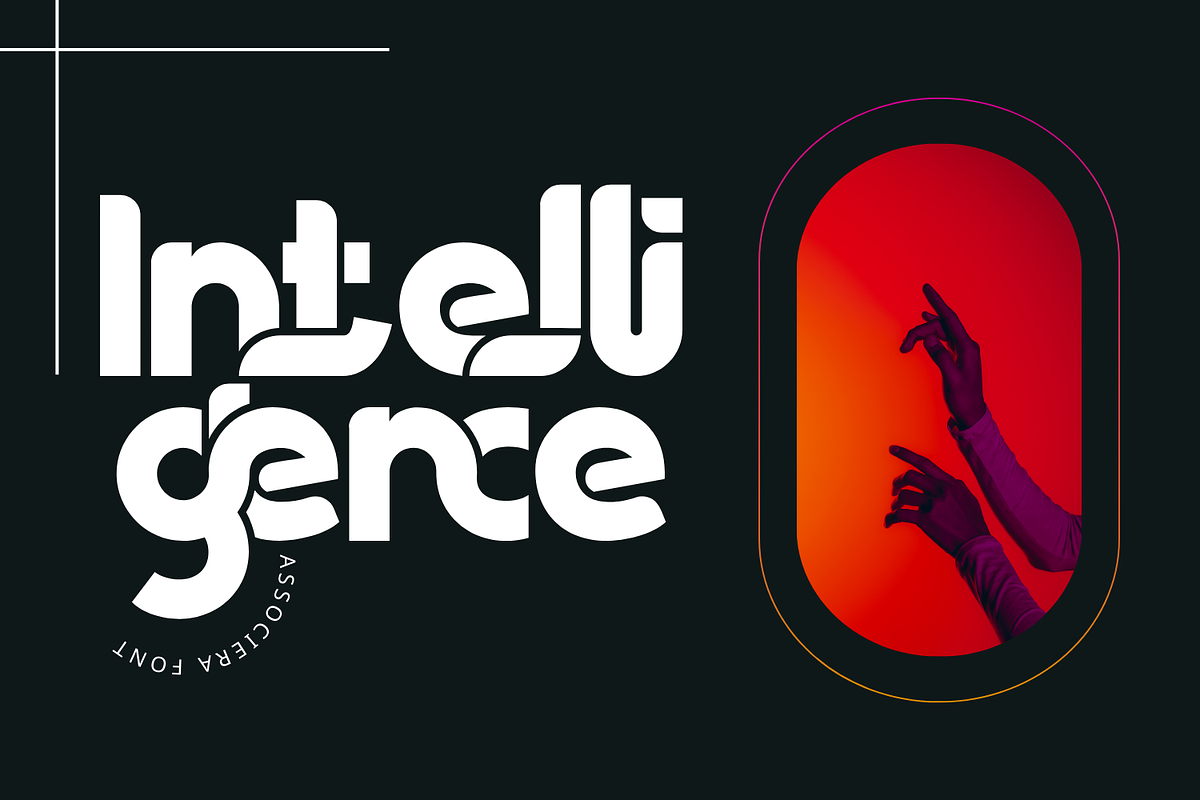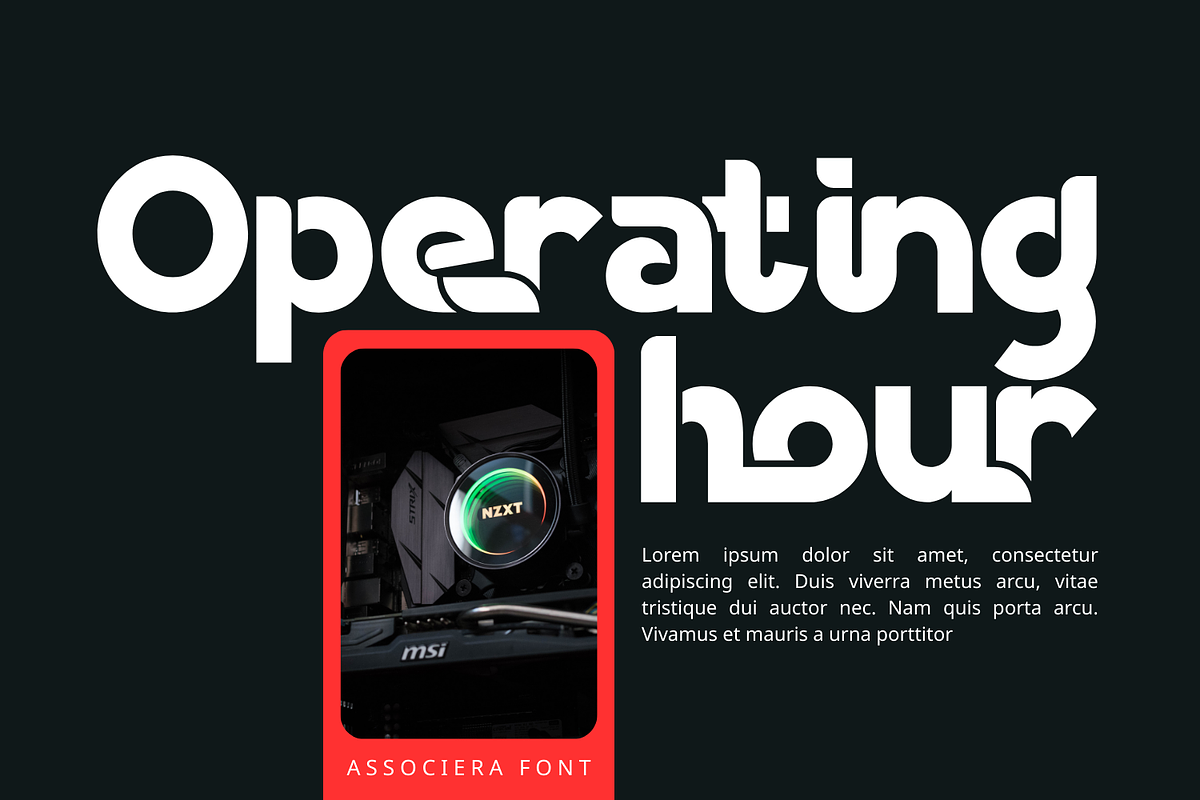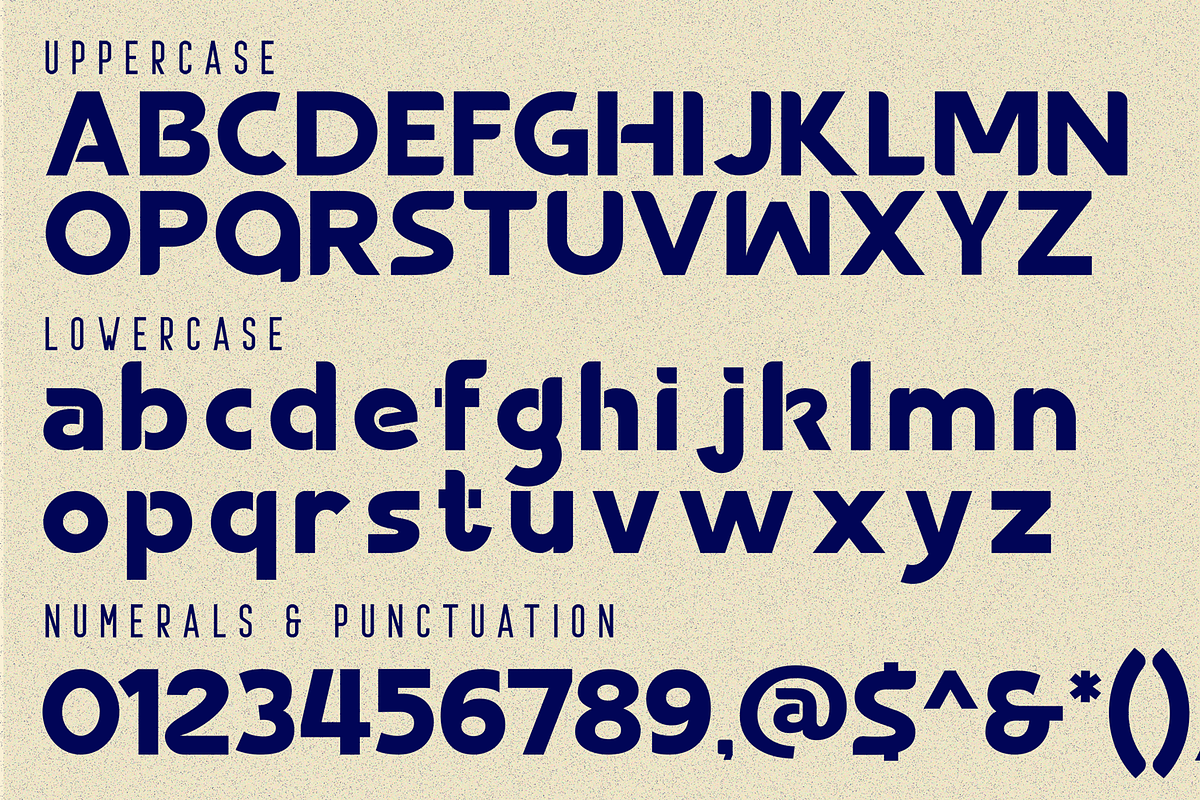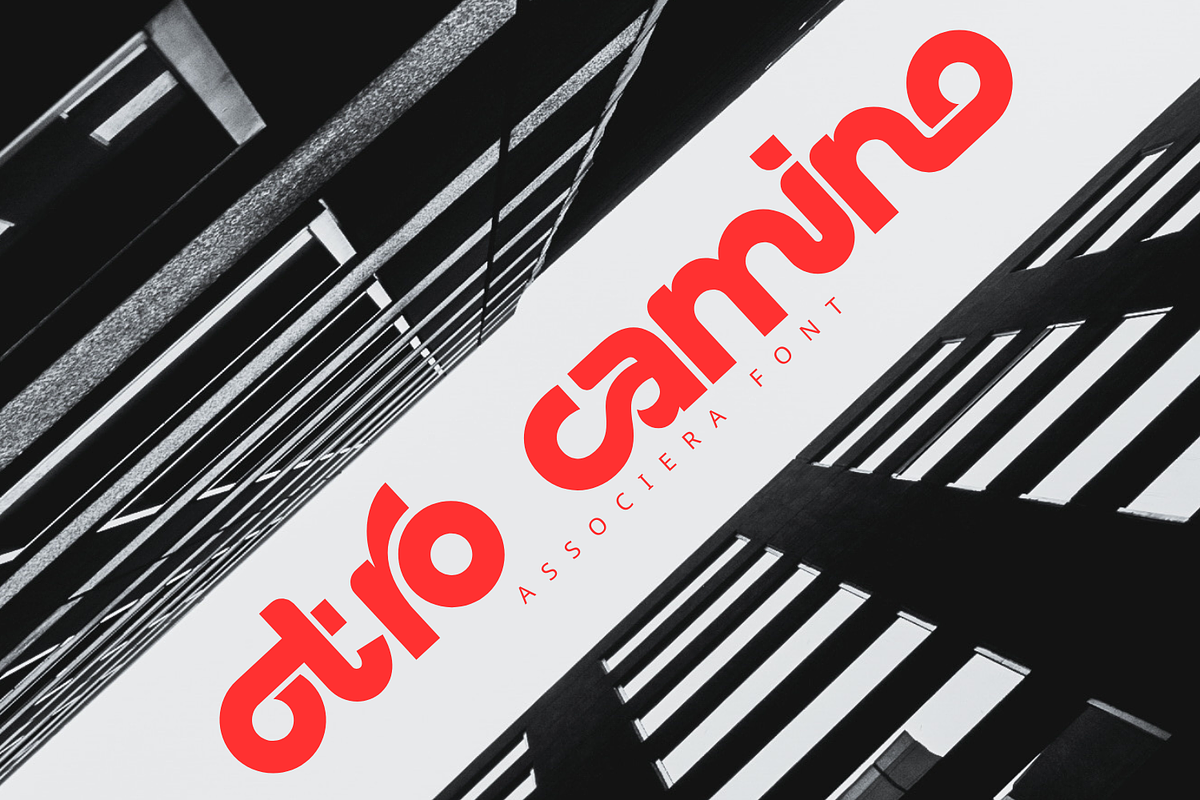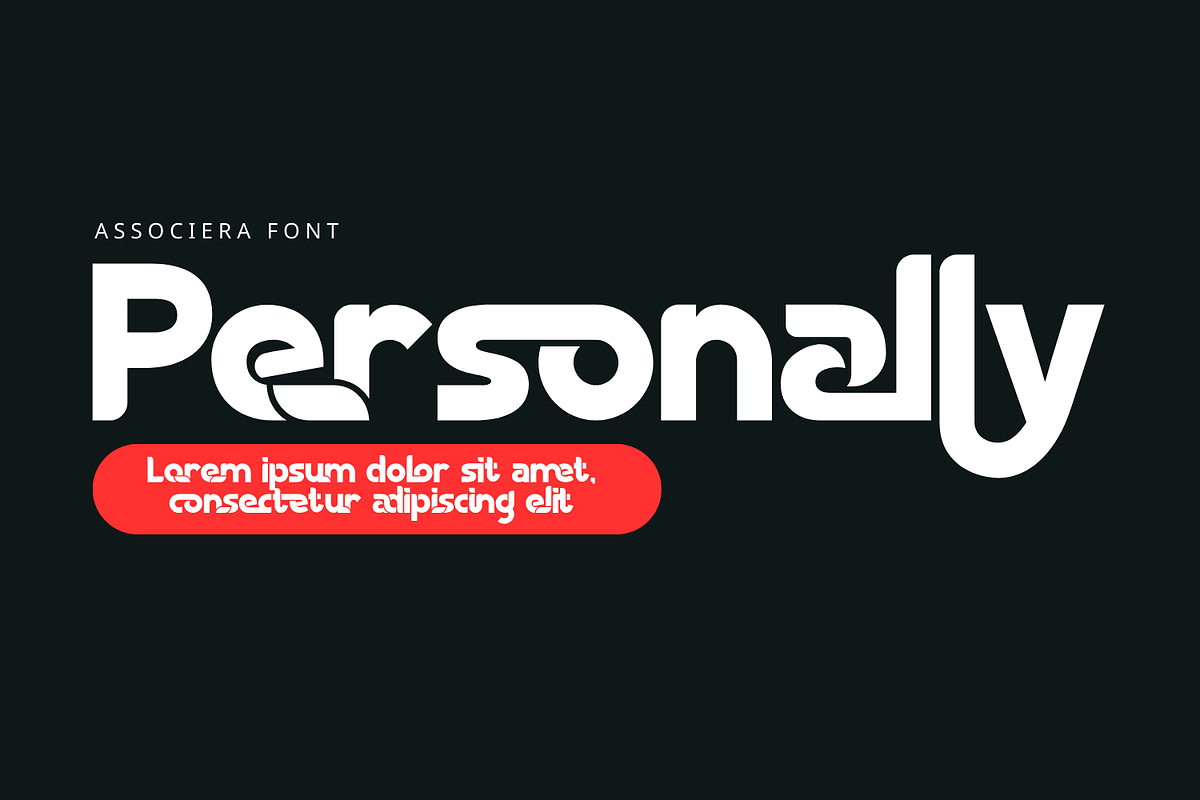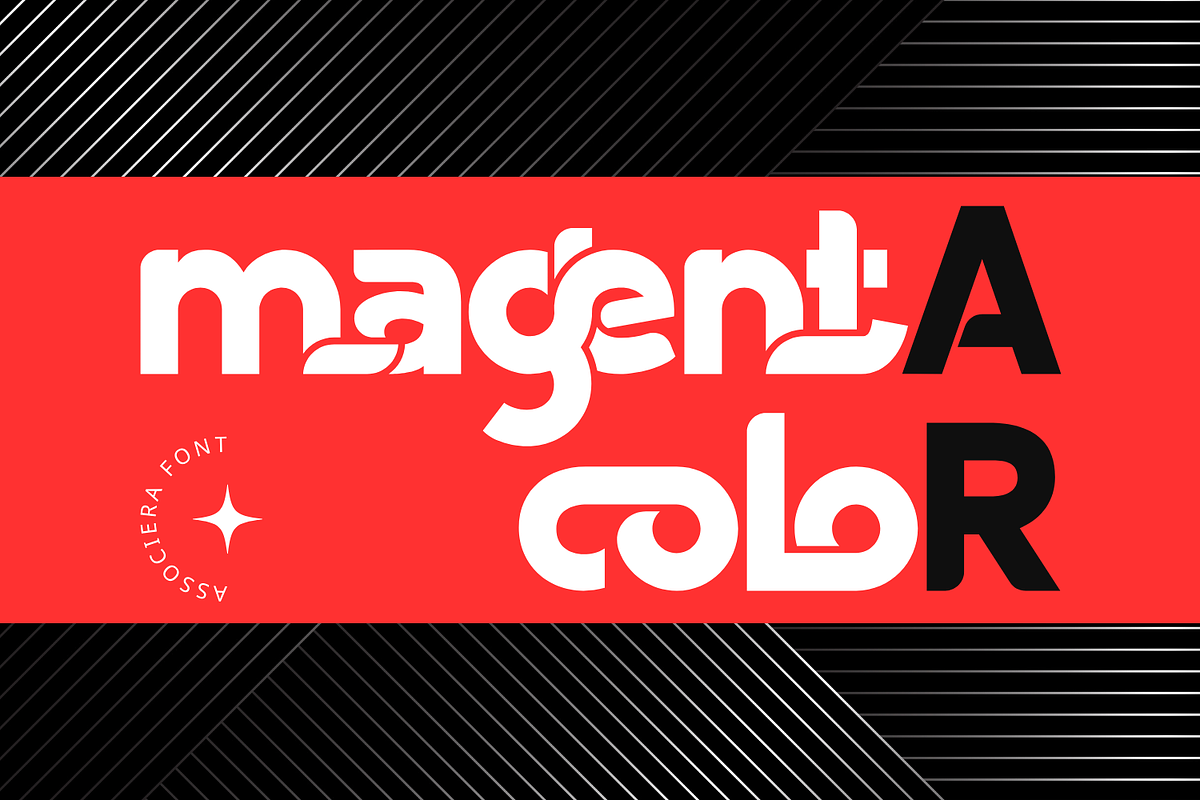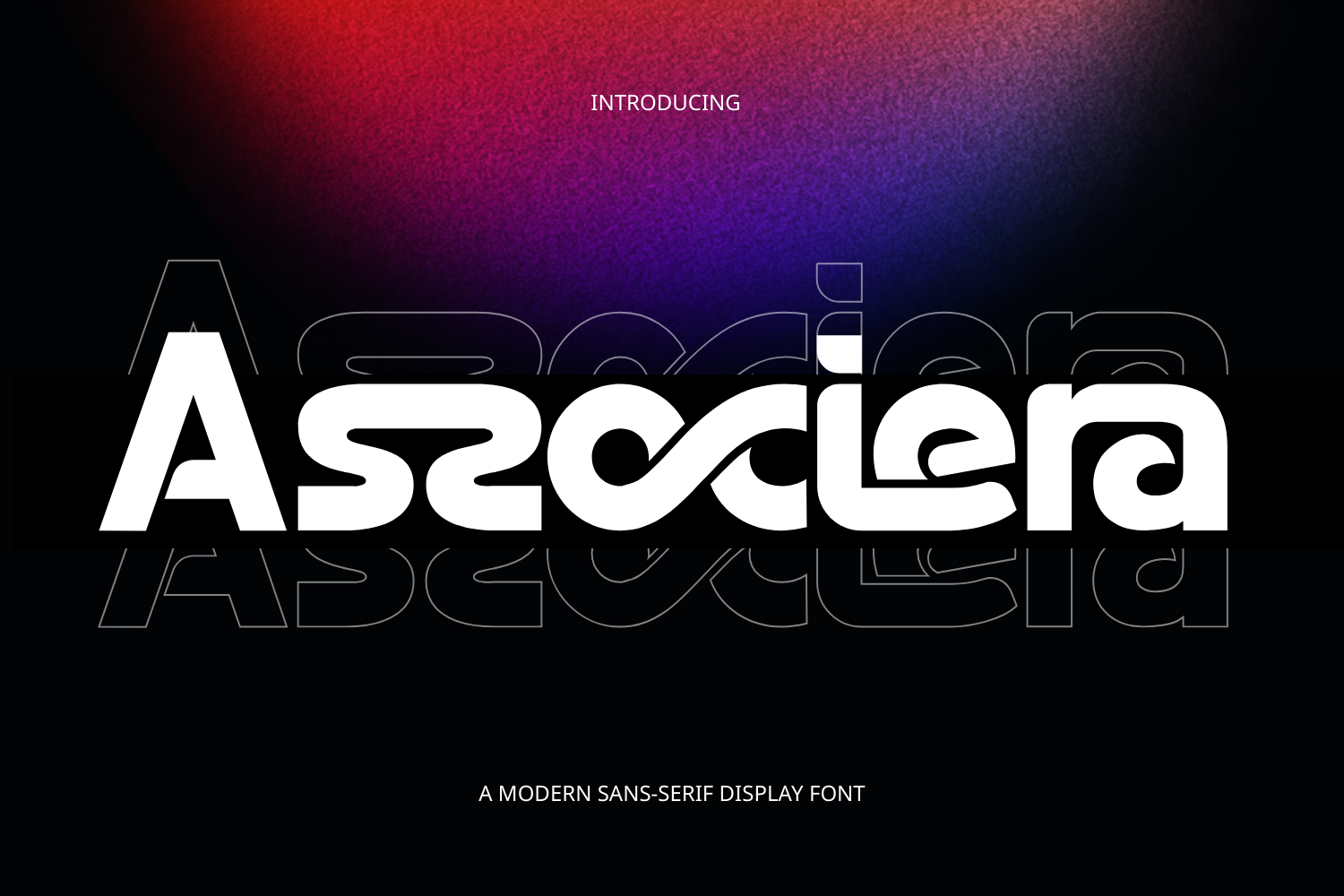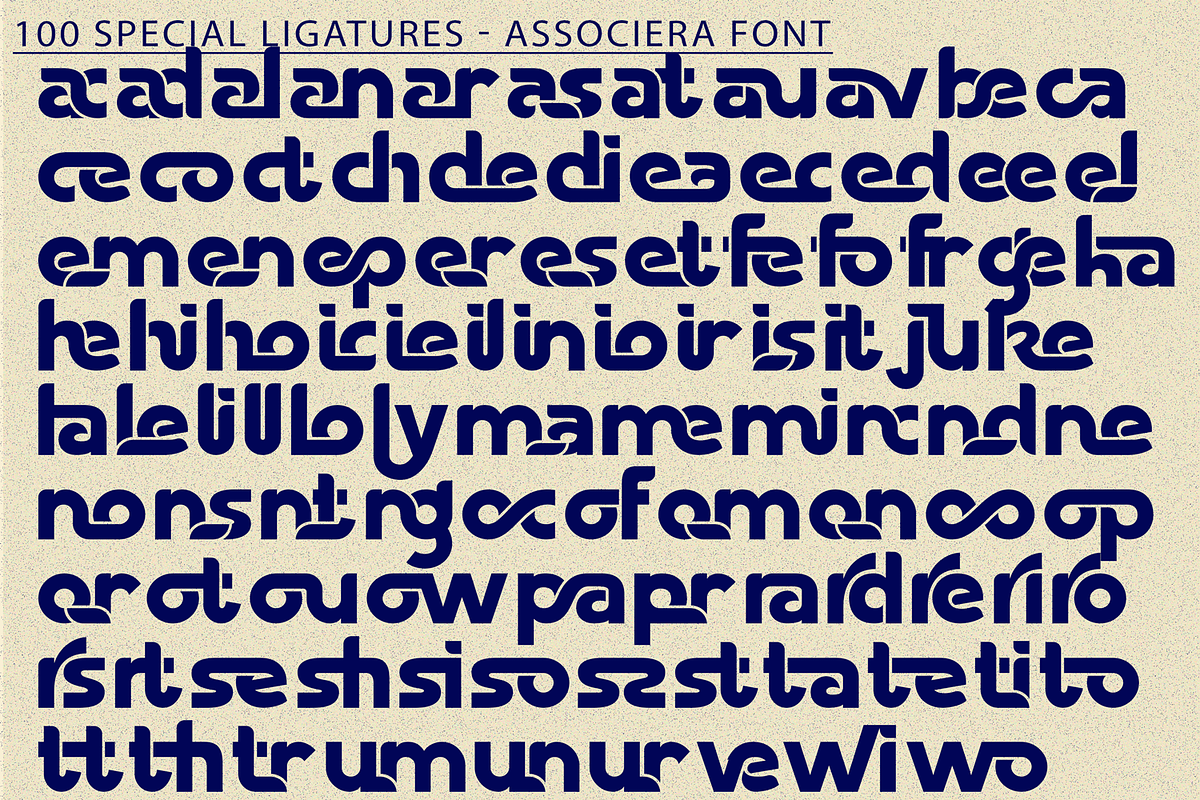
Associera - Unique Sans Font
Associera - Unique Sans Font is a modern fluid sans serif display typeface designed for contemporary branding and expressive typography. Featuring smooth curves, flowing connections, and softly rounded letterforms, this font creates a sense of motion and visual continuity. Including both Uppercase and Lowercase letters, approximately 100 custom special ligatures, complete Numerals & Punctuation, and extensive Accented characters, Associera enables designers to craft dynamic wordmarks and eye-catching headlines. Its fluid ligature system and bold, rounded proportions make it ideal for logos, technology branding, creative studios, posters, and modern digital projects.
🔤Features:
- Uppercase & Lowercase Letters
- Around 100 Special Ligatures & Alternates
- Accented Characters for multilingual support
🔤About 100 ligatures combined with Stylistic Alternates Font:
ac ad al an ar as at au av be ca ce ch co ct de di ea ec ed ee el em en ep er es et fe fo fr ge ha he hi ho ie ic il in io ir is it ju ke la le li ll lo ly ma me mi nc nd ne ng no nt ns oc of om on oo op or ot ou ow pa pr ra rd re ri ro rs rt se sh si so ss st ta te th ti to tr tt um un ur ve wi wo